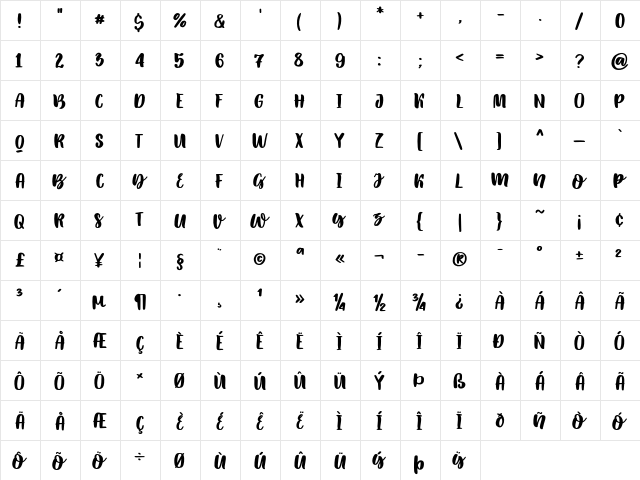
Elowen Caps Regular Font Preview
Elowen Caps Regular
Elowen Caps Regular Font Details
| Foundry | Katsia Jazwinska |
| Designer | Katsia Jazwinska |
Design Context for Elowen Caps Typeface
Elowen Caps is a composed and adaptable typeface that performs quietly and consistently across a wide range of design contexts.